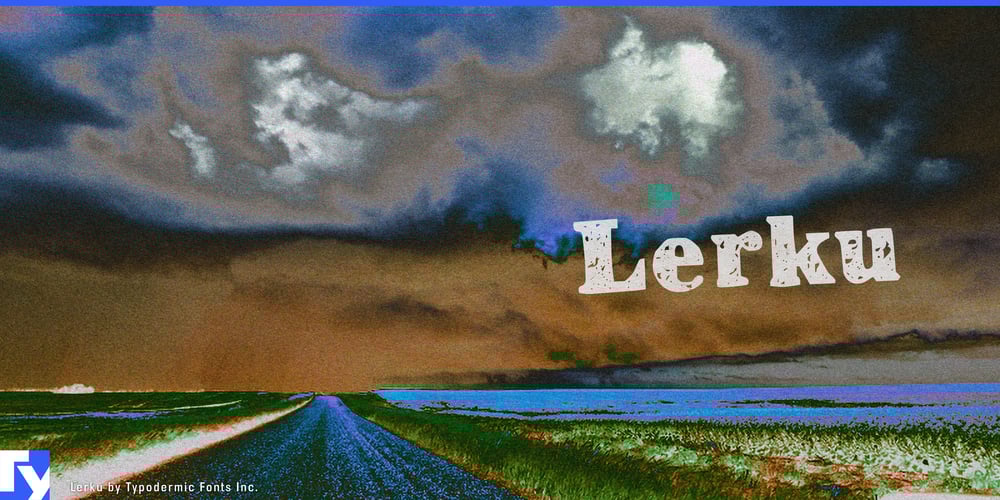
Lerku Font Family was designed by Ray Larabie and published by Typodermic. Lerku contains 1 styles and family package options. Lerku: where vintage grit meets digital rebellion. This isn’t your grandfather’s Bold Antique—it’s Bold Antique’s punk rock offspring.Imagine Morris Fuller Benton’s classic stumbling into a cyberpunk alley. That’s Lerku—heritage worn like scuffed leather, each character a controlled chaos of crispy edges and defiant charm. Its letter pair ligatures are typographic jazz, breaking monotony with graffiti-artist finesse. In OpenType-savvy apps, Lerku doesn’t just set text—it performs. This font roars authority from rooftops. Crafting a digital manifesto or branding a cultural revolution? Lerku’s got you covered, lending words the weight of history and the edge of now. Supporting a vast array of Latin-based European scripts, Lerku’s ready to spread its grungy gospel globally. It’s not just a font—it’s a time-traveling troublemaker.Ready to ignite your designs? Choose Lerku. Don’t just set type; set off a revolution. It’s bold, it’s brash, and it’s unapologetically Lerku.